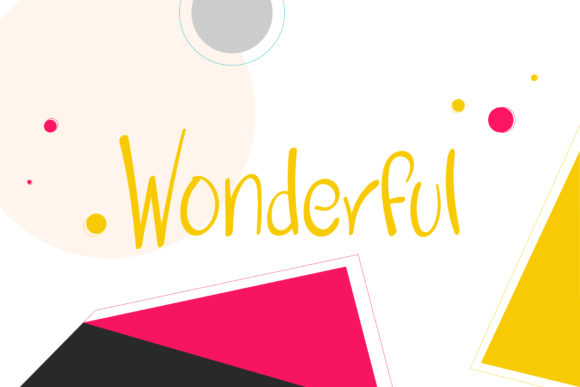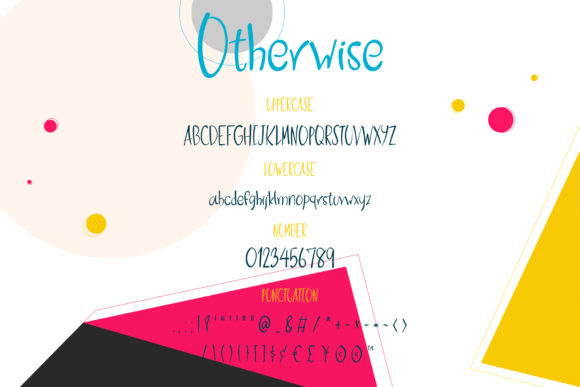
About Otherwise Font
Otherwise: Embrace the Sweet and Friendly Handwritten Charm
Introducing Otherwise, a sweet and friendly handwritten font that radiates warmth and authenticity. Its natural and unique style makes it an ideal fit for a diverse range of designs, allowing you to explore endless creative possibilities. This font knows no bounds; it thrives in any setting, making it the perfect companion for all your imaginative projects. Add Otherwise to your designs and experience how it brings them to life with its delightful charm. Whether you’re crafting warm invitations, designing captivating logos, creating heartfelt quotes, or exploring any other creative endeavor—the only limit with Otherwise is your imagination. Embrace its sweetness and let your creative ideas soar!
The allure of Otherwise lies in its sweet and friendly nature. Each letter carries a genuine warmth that adds a touch of authenticity and approachability to your designs, instantly connecting with your audience.
Designing with Otherwise is a delightful experience. Its handwritten strokes and friendly characters bring a sense of naturalness and allure to your creations, making them truly special and captivating.
Fall in love with the versatility of Otherwise. Whether you’re designing for joyous celebrations or expressing heartfelt sentiments, this font effortlessly adapts to match your creative vision.
Unleash your imagination with Otherwise. Its sweet and friendly style allows you to create designs that radiate warmth, adding a touch of sincerity and friendliness to your projects.
Gorgeous designs come to life with Otherwise’s sweet and friendly charm. Whether you’re crafting invitations or designing heartwarming quotes, this font adds a sense of genuine charm that captivates your audience.
In conclusion, Otherwise is more than just a font; it’s a sweet and friendly masterpiece that invites you to embrace the warmth of handwritten charm. Add it to your creative ideas and watch as your projects come alive with authenticity and friendliness. Otherwise brings joy and delight to all who see it, making it the perfect choice for any creative endeavor. Let this font be your trusted companion, adding a touch of sincerity and approachability to your designs. Allow Otherwise to awaken the full potential of your creativity, and experience how it elevates your projects to new levels of heartfelt charm. Embrace the sweet and friendly spirit of Otherwise, and let it guide you to create designs that inspire and leave a lasting impact on all who behold them. The only limit is your imagination!